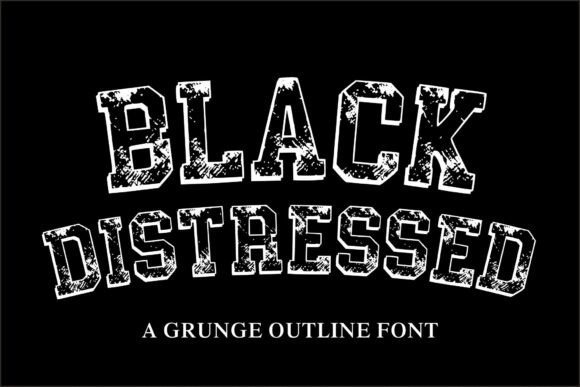
Distressed Charm: The Power of Black Distressed Font
There’s something about a well-crafted distressed design that immediately grabs your attention. You’re rummaging through your grandfather’s old attic, and you stumble upon a faded vintage poster. The worn, rugged texture and bold lettering evoke a sense of nostalgia and authenticity. This is the kind of visual impact you can achieve with the Black Distressed Font.
This bold grunge outline font is designed to give your designs an authentic vintage and worn effect. With its strong collegiate-style letterforms and rough edges, the Black Distressed Font is perfect for retro posters, apparel designs, branding, logos, and sports-themed graphics. Its versatility and rugged charm make it an invaluable tool for designers looking to add character and attitude to their creative projects.
Key Features of Black Distressed Font
- Unique Characteristics: Distressed texture and edgy design elements give the font a worn, vintage look, perfect for adding a touch of nostalgia to designs.
- Legibility: Despite its distressed appearance, the font remains highly legible, making it suitable for body text and headlines alike.
- Style Variations: Available in multiple styles, including regular, bold, italic, and bold italic, allowing designers to experiment with different looks and moods.
Designer Review: Black Distressed Font
Overall, I think the Black Distressed Font has some great qualities that make it perfect for certain projects. ✨ Here are some of the things that work well:
- Unique aesthetic: The distressed look gives the font a gritty, edgy feel that’s perfect for designs that need a bit of attitude.
- Good legibility: Despite the distressed look, the font is still pretty easy to read, making it a great choice for projects where clarity is key.
- Wide compatibility: The font is available in a range of weights and styles, making it easy to find the right version for your project.
That being said, there are a few limitations to consider. ⚠️ Here are some of the things that might hold you back:
- Limited expressiveness: While the distressed look is great for some projects, it might not be the best choice for more formal or elegant designs.
- Potential for overuse: The Black Distressed Font is a bit of a trend, and using it too much might make your design feel dated or clichéd.
- Some kerning issues: Depending on the specific version of the font you’re using, you might encounter some kerning problems that can affect the overall look of your design.
Overall, I think the Black Distressed Font is a great choice for projects that need a bit of attitude and edge. Just be mindful of its limitations and use it thoughtfully to get the best results.
To get the most out of the Black Distressed Font, use it in conjunction with bold colors and contrasting backgrounds. Experiment with different font sizes and styles to create a visually striking effect. You can also combine the font with other design elements, such as textures and graphics, to add depth and interest.
The Black Distressed Font is commonly used in:
- Rock and metal music designs
- Edgy fashion and lifestyle branding
- Industrial and urban-themed graphics
- Distressed or vintage-inspired designs